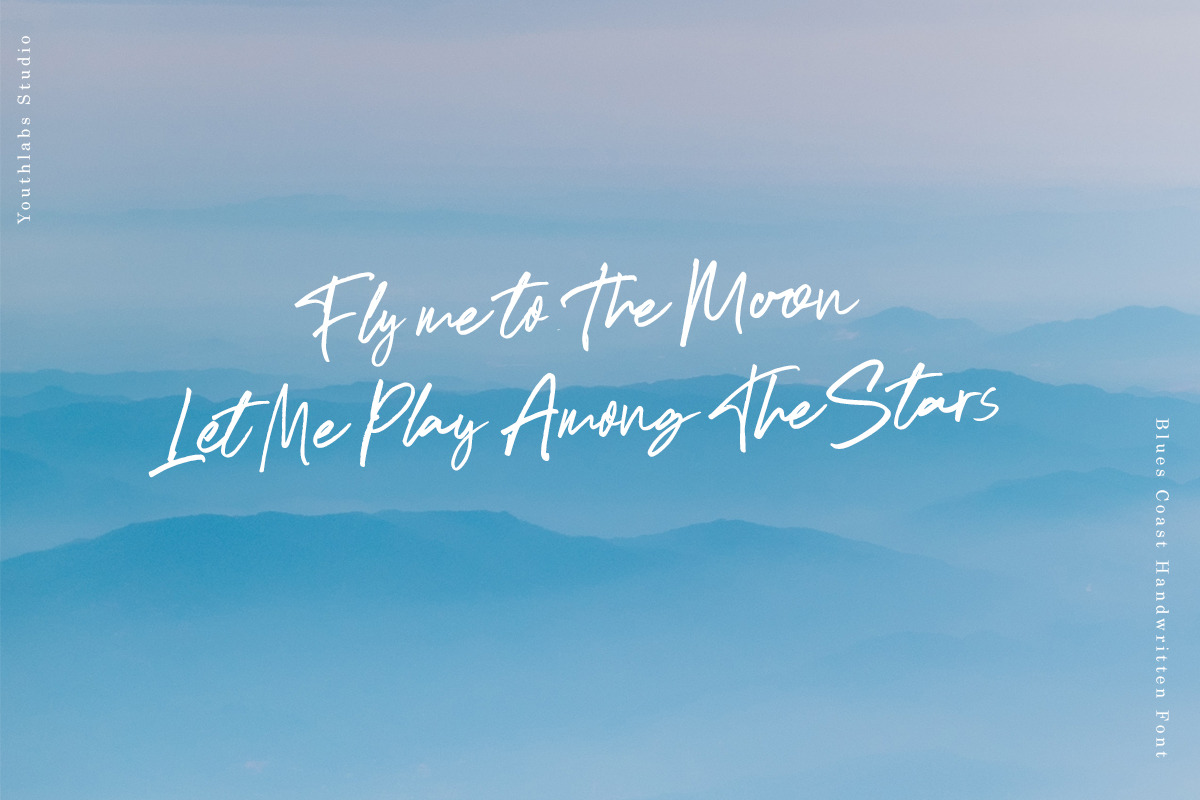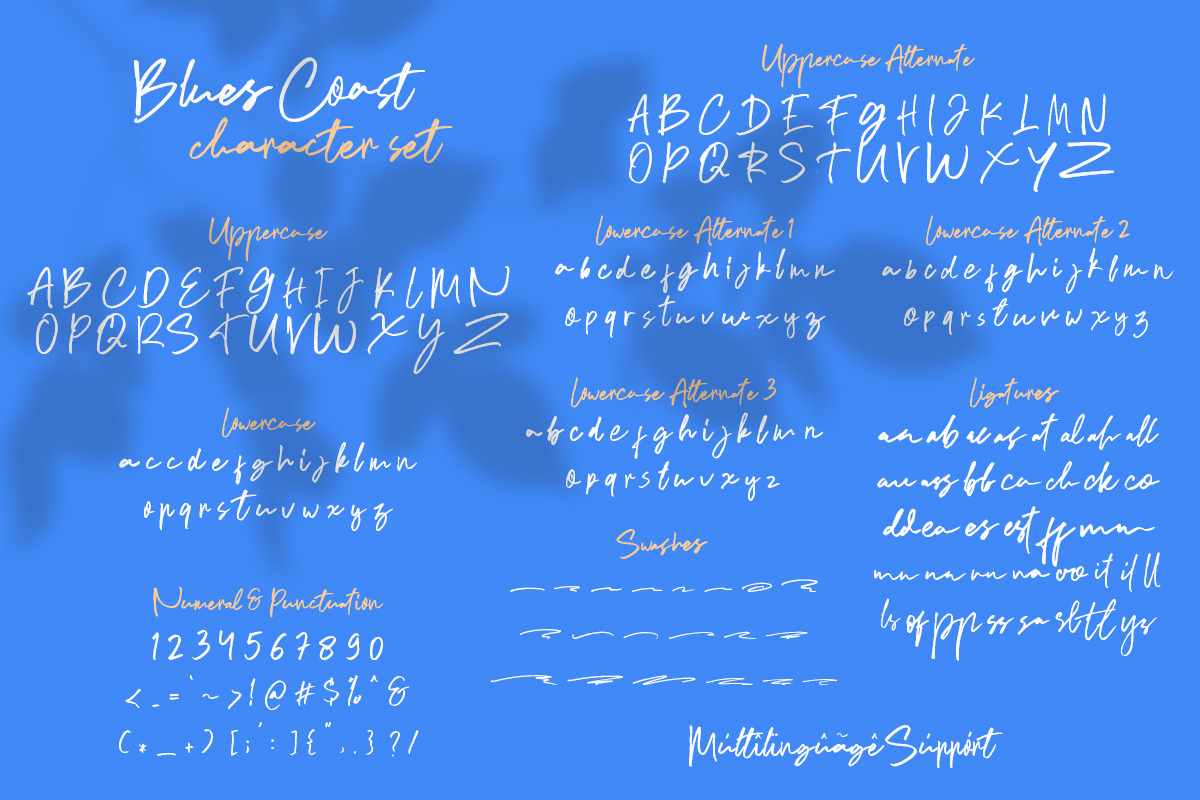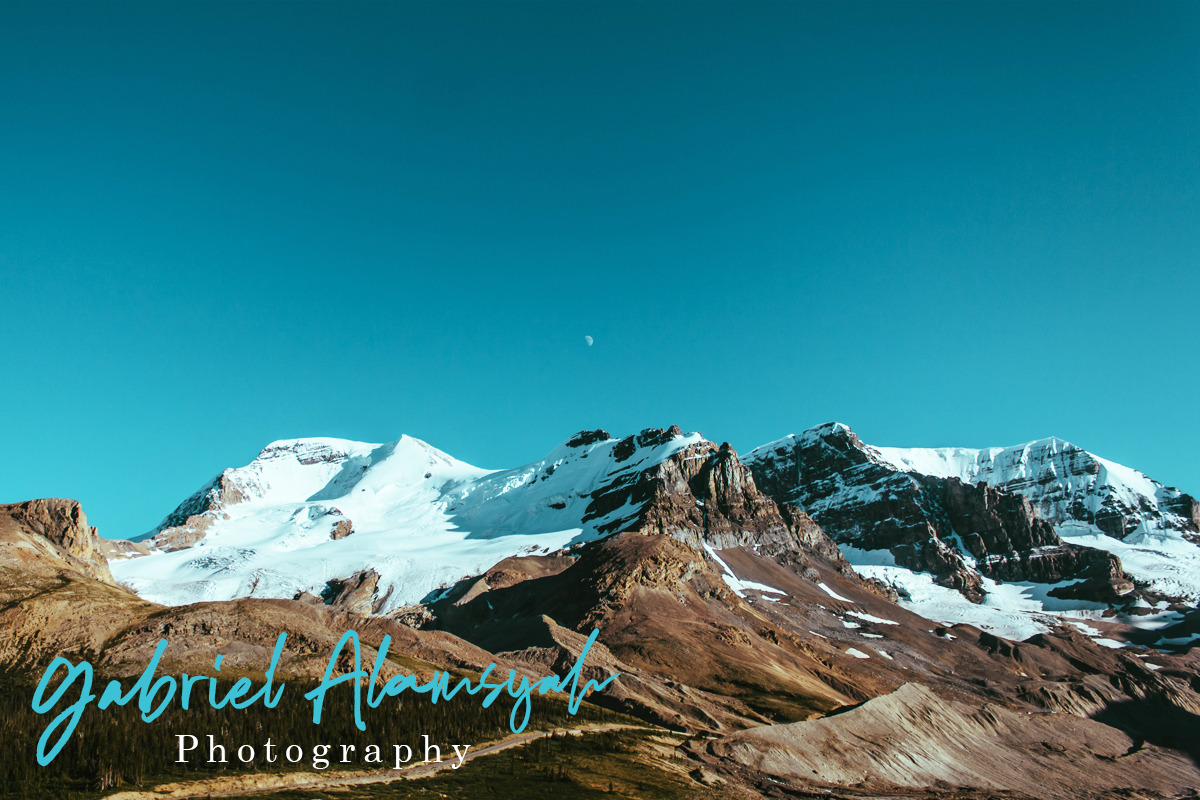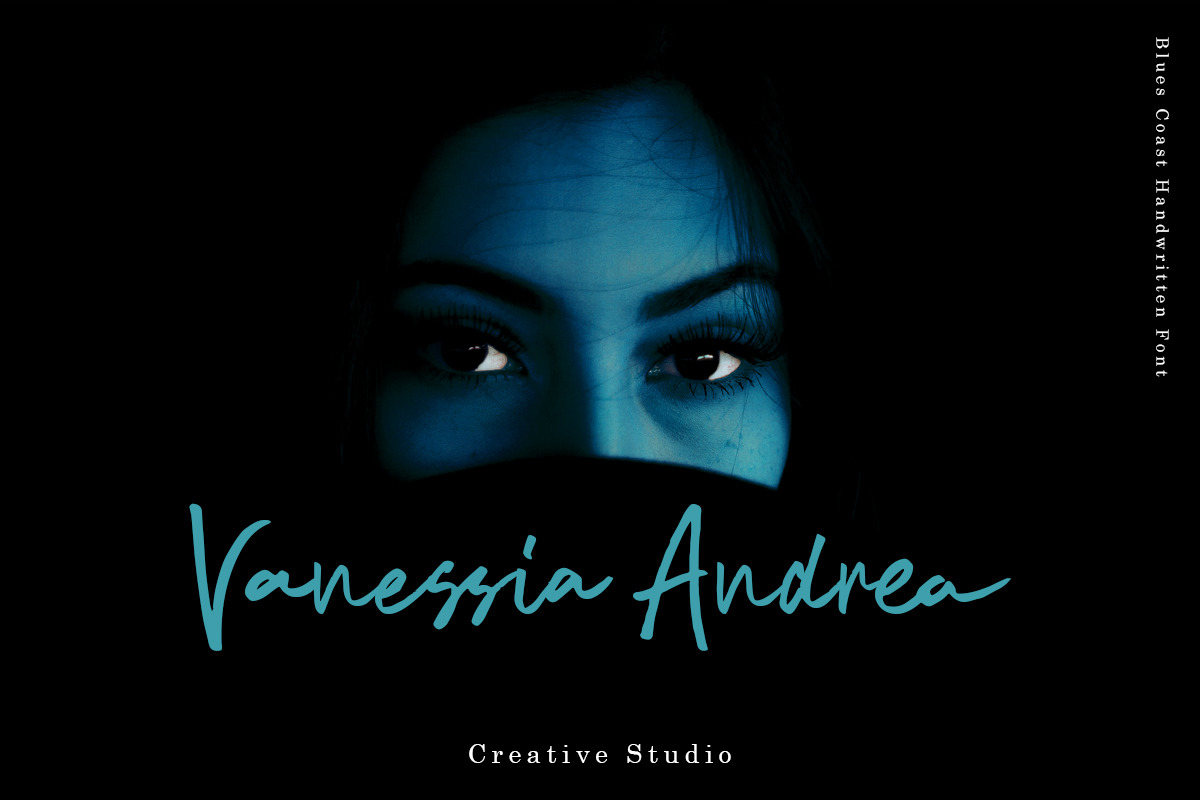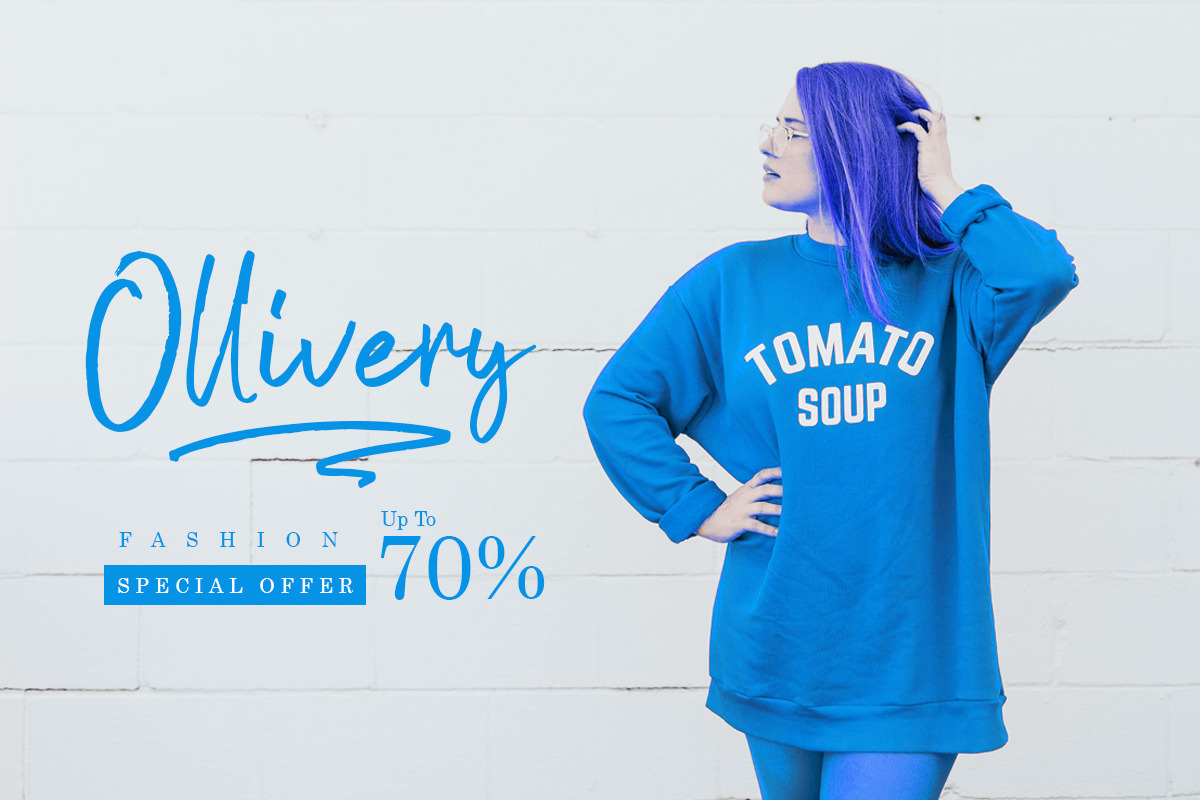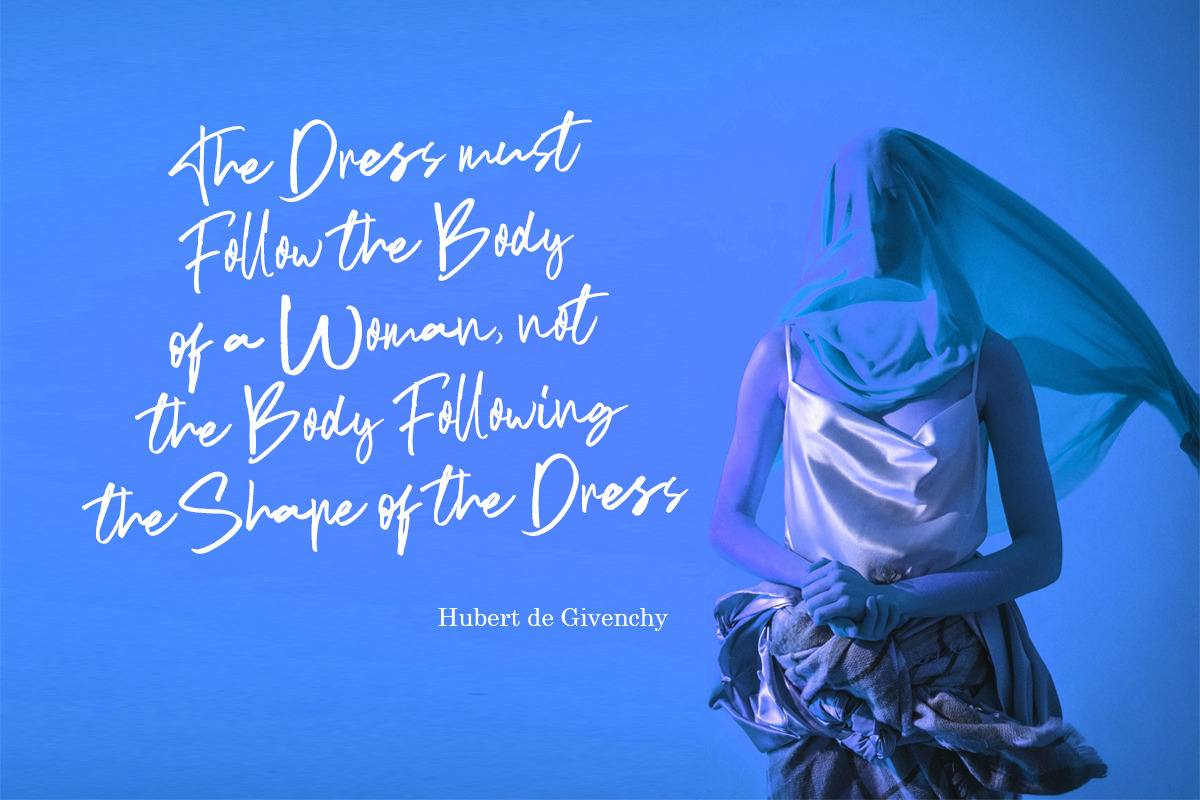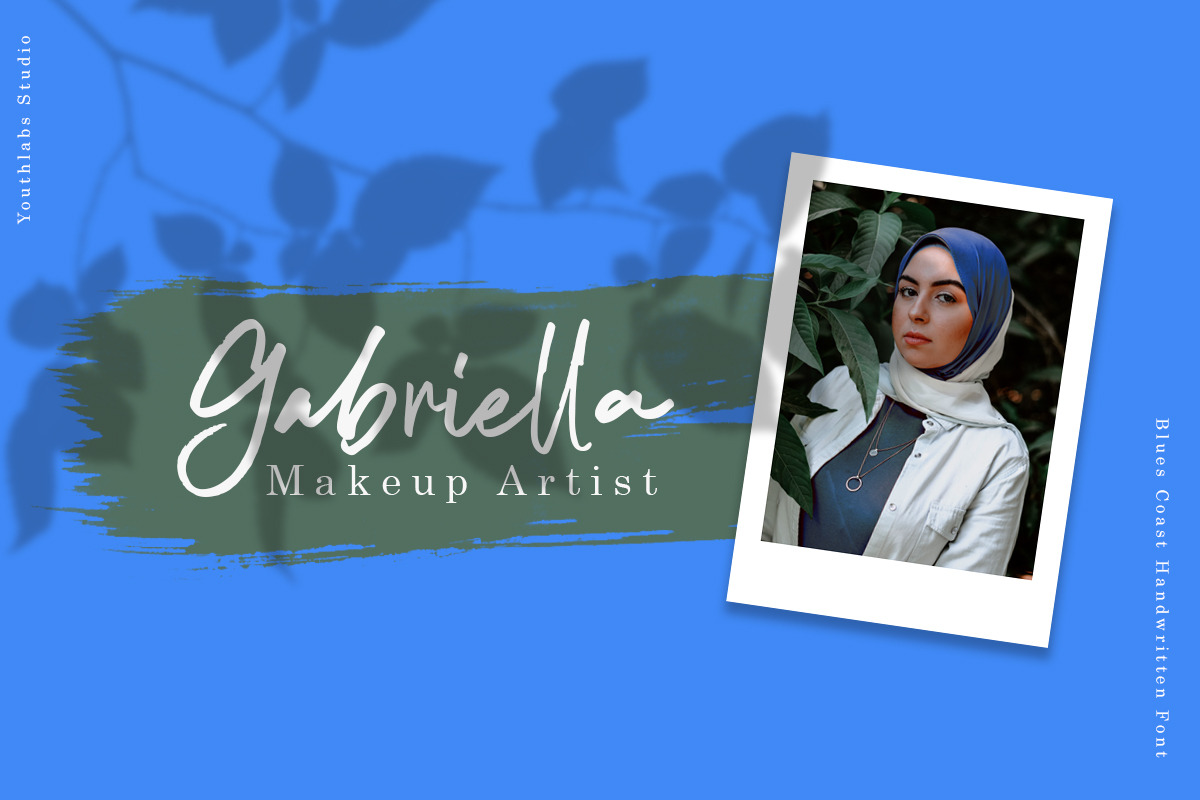
Blues Coast - Handwritten Font
Introducing Blues Coast a Handwritten Font. Blues Coast Font made from scracthes and scanned before move to vector mode. Blues Coast Font is made with many alternate character to explore various project. Blues Coast Font has Many Style Alternate Character like Uppercase, Lowercase, Ligatures, and Swashes
Blues Coast Handwritten Script Font can be use for various project such as photography, watermark, social media posts, advertisements, logos & branding, invitation, product designs, label, stationery, wedding designs, product packaging, special events or anything that need handwriting taste
- Blues Coast Font is made with many alternate character to explore various project.
- Blues Coast Font has Many Style Alternate Character like Uppercase, Lowercase, Ligatures, and Swashes Blues Coast Handwritten Script Font ca
Blues Coast - Handwritten Font by Youthlabs Studio fits naturally into Branding, posters, packaging, typography.